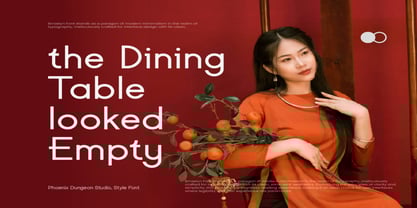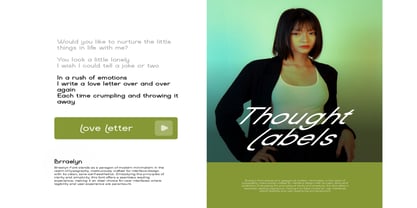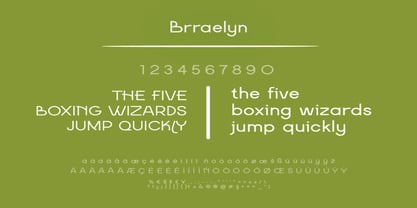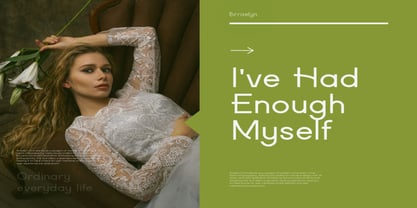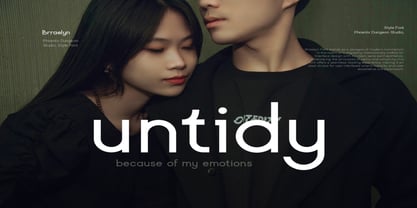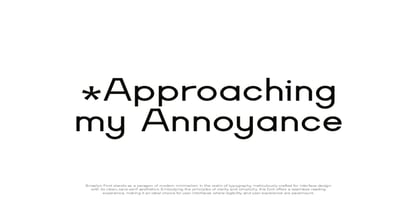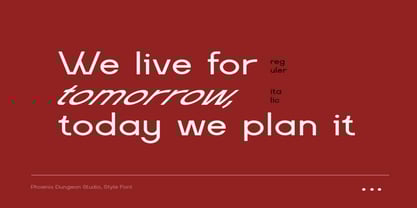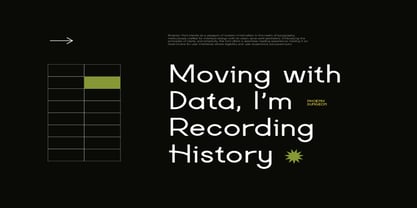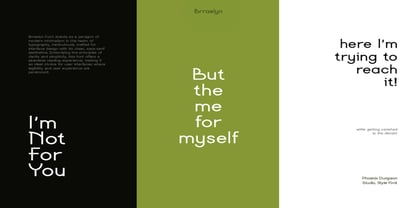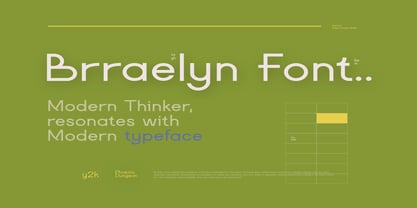
Brraelyn
by Phoenix Group
The Brraelyn Font Family was designed by Alif Naufal Muzakki and published by Phoenix Group. Brraelyn contains 2 styles and family package options. More about this family
Brraelyn Font stands as a paragon of modern minimalism in the realm of typography, meticulously crafted for interface design with its clean, sans-serif aesthetics. Embodying the principles of clarity and simplicity, this font offers a seamless reading experience, making it an ideal choice for user interfaces where legibility and user experience are paramount.
Designers: Alif Naufal Muzakki
Foundry: Phoenix Group